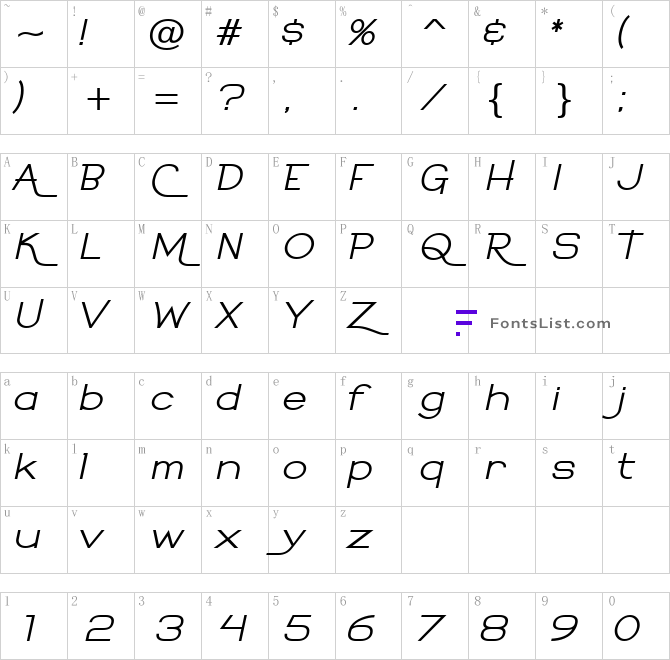
- Font Name:Calamity Teen BTN
Calamity-Teen-BTN-BoldOblique.ttf is a very beautiful artistic font, Calamity-Teen-BTN-BoldOblique.ttf is widely used in the design and printing of various books and pictures,Calamity-Teen-BTN-BoldOblique.ttf has a strong visual impact,Calamity-Teen-BTN-BoldOblique.ttf is a commonly used font in newspapers, magazines and books, and is used in posters, e-commerce Poster design, store design, logo design, font design and other fields.Calamity-Teen-BTN-BoldOblique.